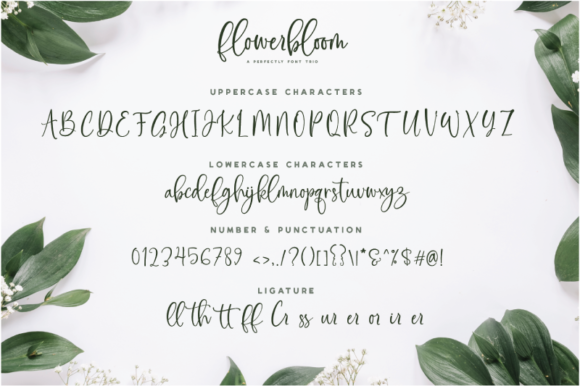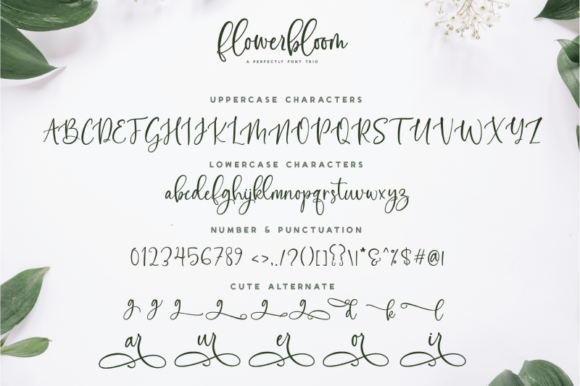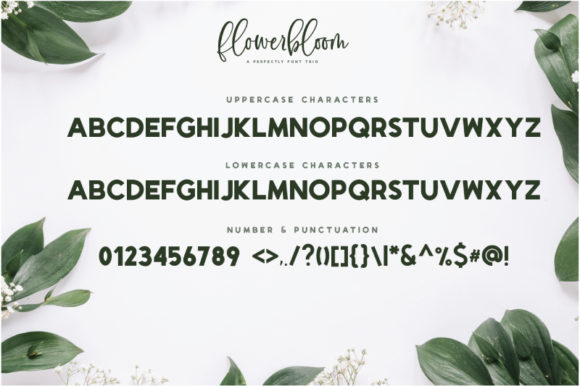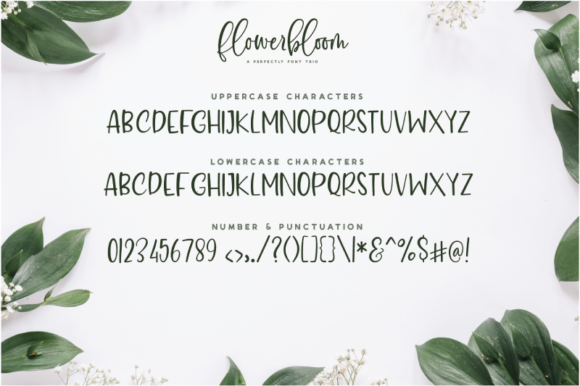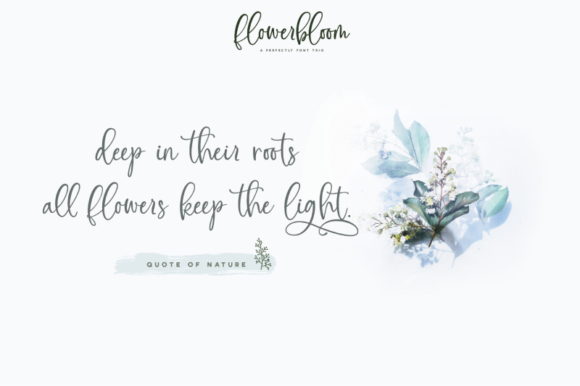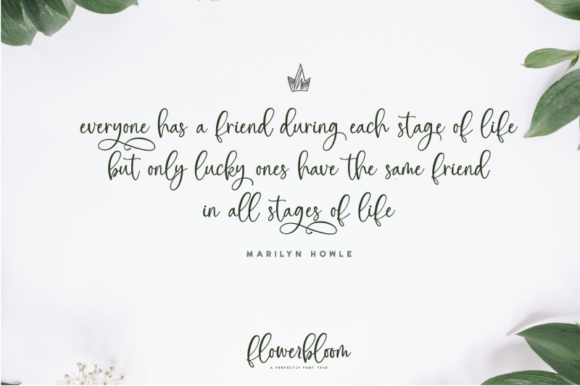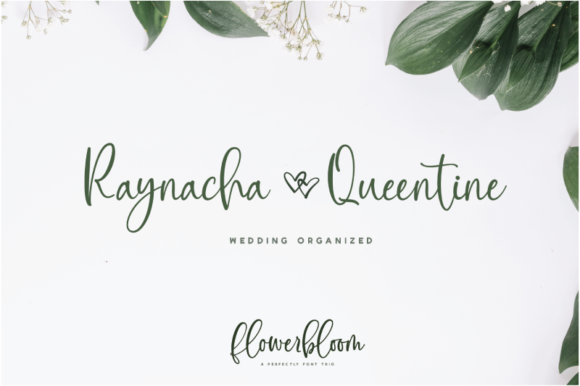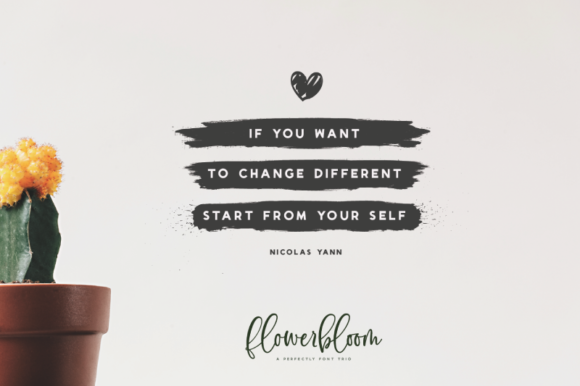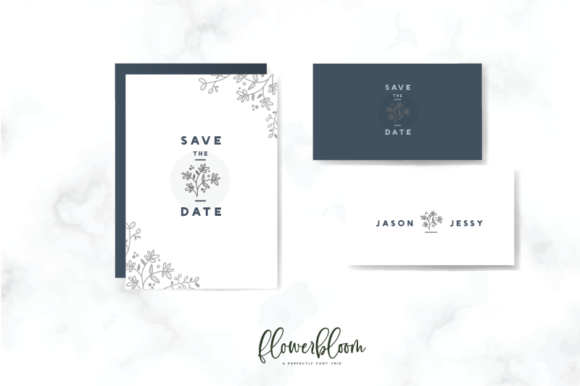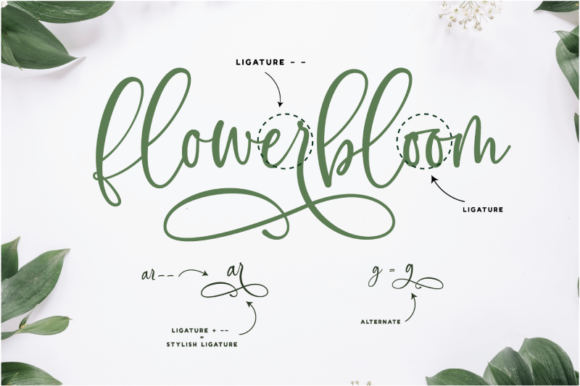
Flowerbloom Font
About Flowerbloom Font
Flowerbloom is a strong and playful script inspired by the natural beauty of flowers. Fall in love with its organic charm, and take any spring craft to the next level!